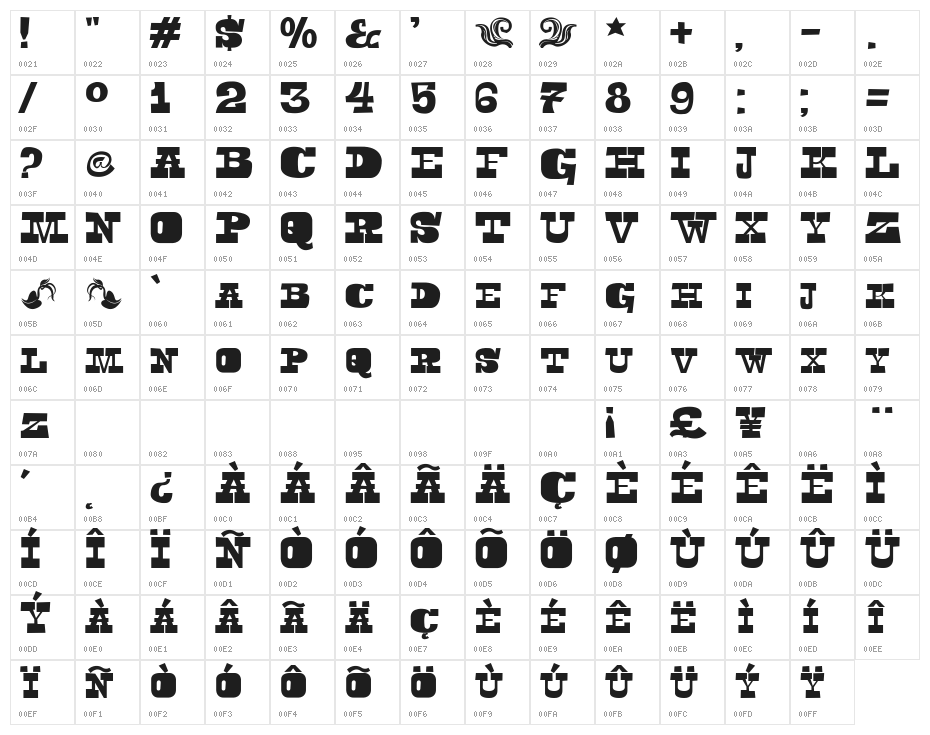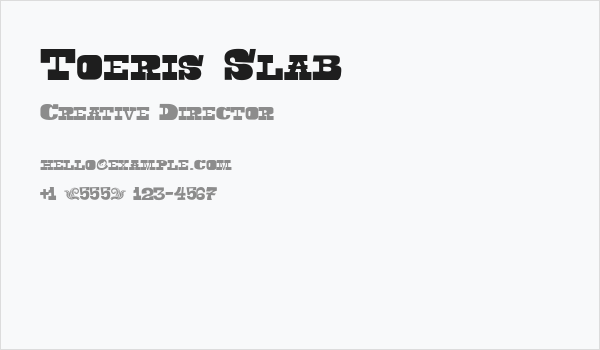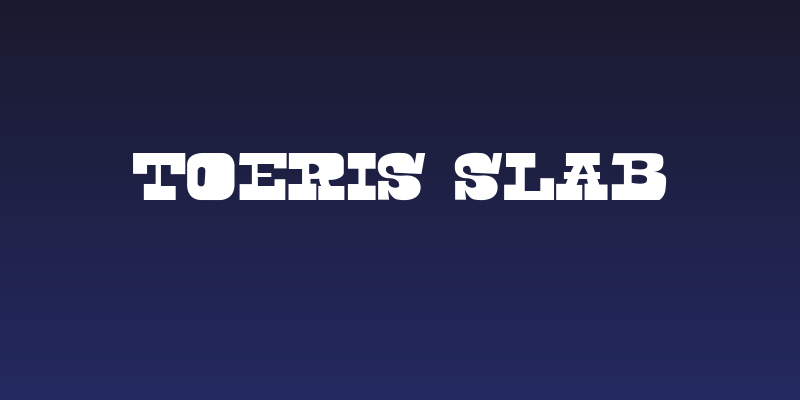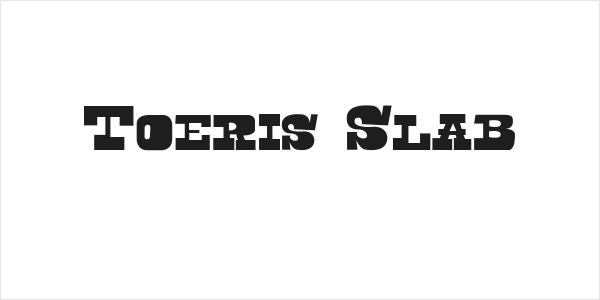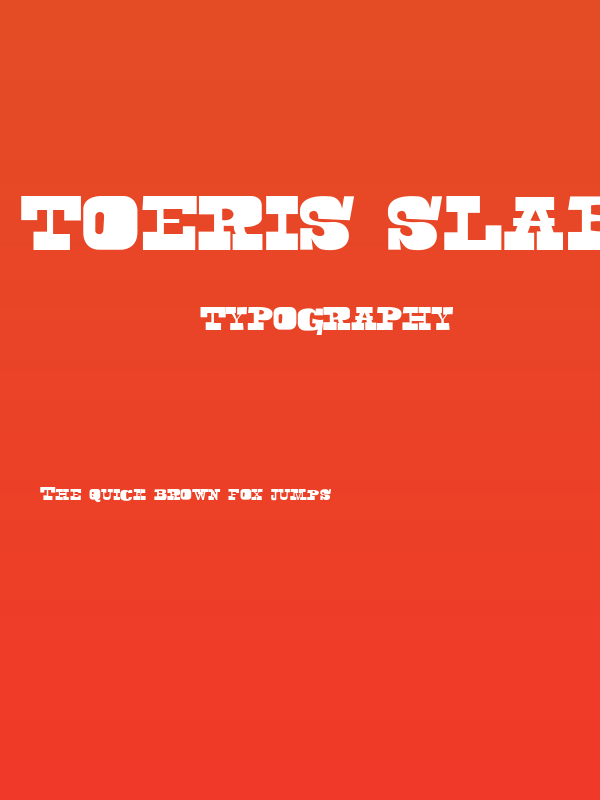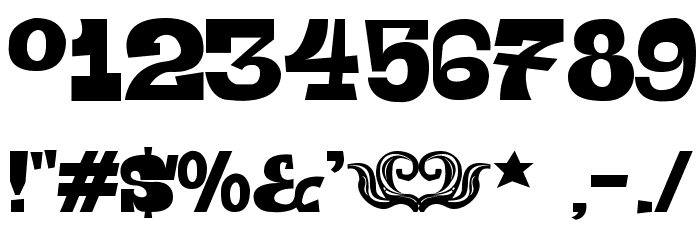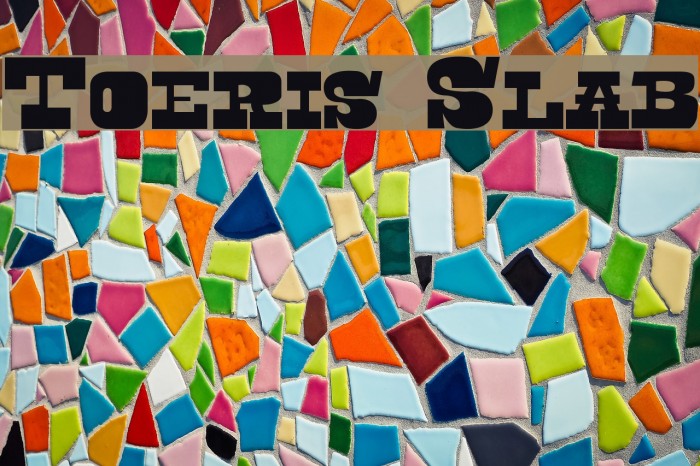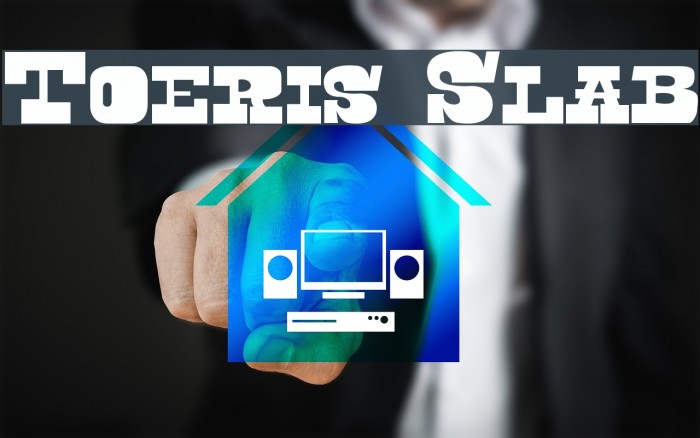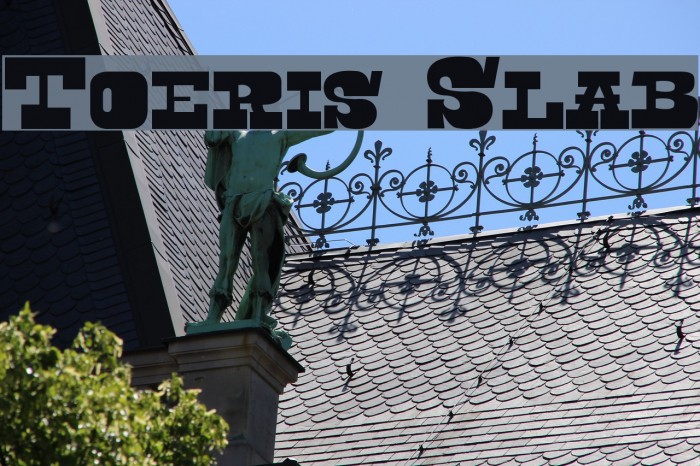
Toeris Slab Font
Toeris Slab Description
This font features bold, thick strokes with a strong presence, characterized by its slab serif style. The serifs are prominent and block-like, giving it a sturdy and robust appearance. The uppercase letters are uniform in height, while the lowercase letters maintain a consistent baseline, enhancing readability. The numbers are equally bold, ensuring they stand out in any design. Special characters are creatively designed, adding a unique flair to the overall typeface. The font's weight and width make it ideal for making a statement, with a design that balances modernity and classic slab serif elements.
| Proposed Projects | Ideal for headlines, posters, branding, and any project requiring a strong visual impact. |